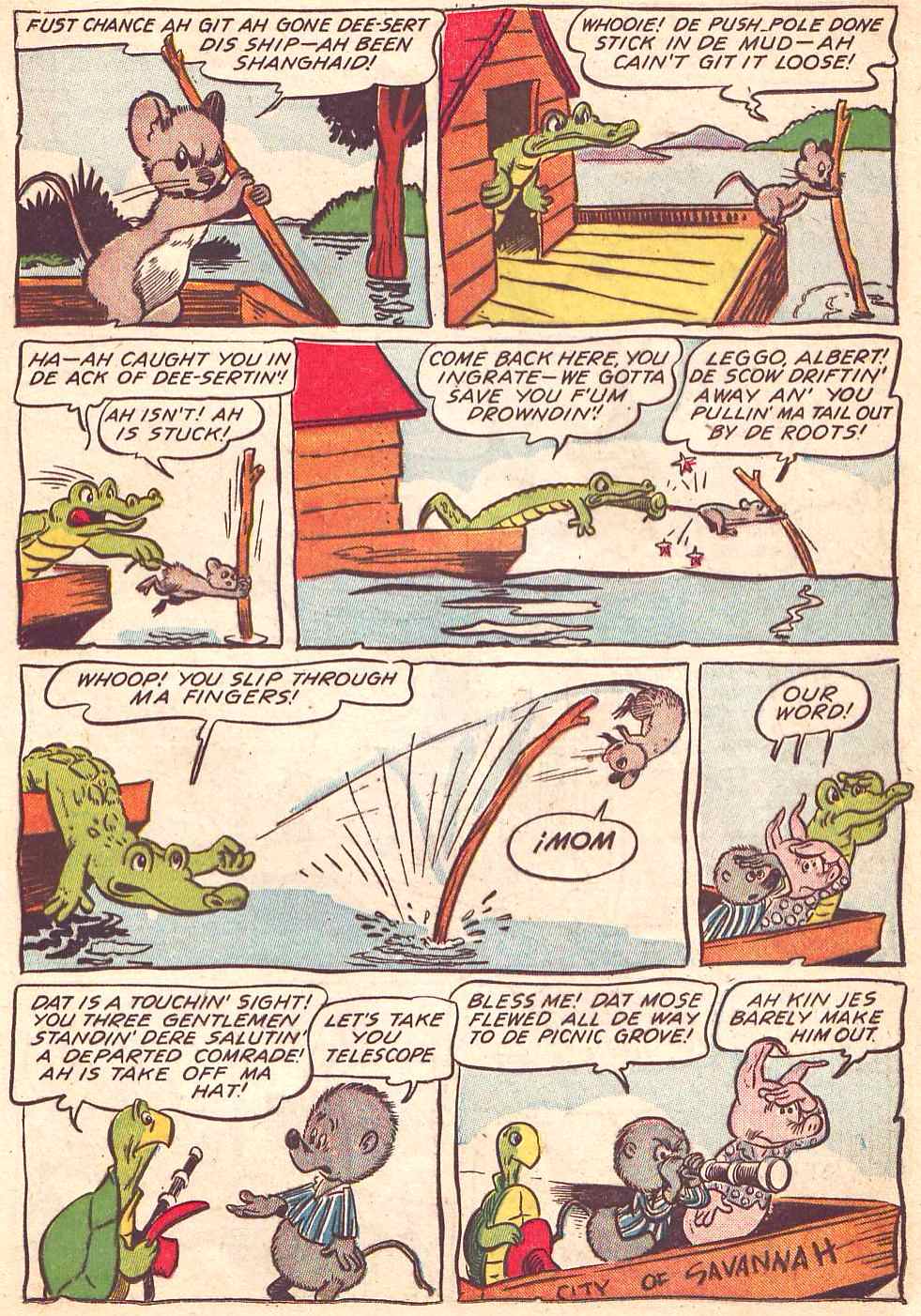
Raymond Albert “Ray” Burley was born on February 23, 1890, in Ainsworth, Nebraska, according to this World War I and II draft cards. His parents were Albert William Burley of Canada, and Mary Cornish of Indiana. They married in Midvaile, Nebraska on December 12, 1897.
In the 1900 United States Census, Burley (line 54) was the oldest of three brothers. The family included their maternal grandmother. They resided in Blaine, Washington on B Street. Burley’s father was a day laborer.
The 1910 census counted the Burleys in Everett, Washington at 3425 Rucker Avenue. Burley was a sign painter (line 86). The 1911 Everett city directory said Burley’s employer was the Westbrook Sign Company.
At some point, Burley moved to New York City.
On June 5, 1917, Burley signed his World War I draft card. His address was 60 West 66th Street in Manhattan, New York City. He was an unemployed artist. His description was five feet nine inches, medium build, with blue eyes and blonde hair.
Burley’s New York service card said he was inducted on May 27, 1918. He was in Company C of the 51st Pioneer Infantry and served overseas from July 26, 1918 to July 3, 1919. He was honorably discharged on July 10, 1919. A record of his service was in Snohomish County in the War: The Part Played in the Great War by the Soldiers, Sailors, Marines and Patriotic Civilians of Snohomish County, Washington, U.S.A.
At the Field Guide to Wild American Pulp Artists, David Saunders said Burley studied at the Art Students League from 1919 to 1923.
Burley contributed illustrations to several pulp magazines.
Burley has not yet been found in the 1920 census and 1925 New York state census.
According to the 1930 census, Burley (line 34) lived in Manhattan at 217 West 14th Street. He was a self-employed artist. His roommate worked in advertising.
The Springfield Republican (Massachusetts), January 18, 1934, said
New York, Jan. 17—The Phelps Publishing company of Springfield, with a claim of $4813, is one of three petitioning creditors who today filed an involuntary petition in bankruptcy in federal court here against the Criterion Magazine Publishing company, inc., publisher of magazines entitled Screen Humor, Radio Play and Twice-a-Month Love Book. The bankrupt has principal offices here at 51 East forty-second street. The other petitioning creditors and their claims are: Weiner Bindery, 207 West Twenty-fifth street, New York, $1500, and Raymond A. Burley, 217 West Fourteenth street, $500.
Aboard the steamship Pennsylvania, Burley departed New York on February 23, 1935. He arrived in San Diego, California (his future home) on March 8, 1935. The passenger list had his address as 3211 Rucker Avenue in Everett, Washington.
Who’s Who of American Comic Books 1928–1999 said Burley’s comic book career began in the late 1930s. The Grand Comics Database has many of Burley’s comics credits. Some of Burley’s early comic book works are at the Digital Comic Museum. He signed the following stories.
Keen Detective Funnies, #8, July 1938
War Comics #2, May 1940
Funny Pages #38, June 1940
War Comics #3, July 1940
Amazing Mystery Funnies #24, September 1940
In most of the previous pages, the dialogue was in italics and captions in roman. Burley would adopt this format on his lettering assignments for the Dell Publishing Company.
Burley’s address in the 1940 census was 200 West 16 Street. The artist had his own studio (line 20). His highest level of education was the eighth grade.
Burley’s World War II draft card, signed on April 27, 1942, had the same address. He was self-employed. His description was five feet nine inches, 152 pounds, with blue eyes, gray hair and mustache.
In the mid-1940s and early 1950s, Burley was lettering for Dell Publishing Company. He worked on many stories by Walt Kelly. In The Best of Pogo: Collected from The Okefenokee Star (1982), George Ward recalled Burley.
… All those beautiful comic pages were lettered by an old-timer named Ray Burley who lived in the West Village about six blocks from my apartment. Burley was an interesting character. He always had a pipe in his mouth. He did a beautiful lettering job and Walt was very pleased with his work. However, we did laugh that every time we got the lettered pages back from Burley, we had to clean the pipe ashes off. ...
Burley’s lettering appeared in the following Animal Comics from 1944 to 1948.
#8, April-May 1944: Albert the Alligator
#14, April–May 1945: Albert and the Noah Count Ark, see third tier for upside-down word
#24, December 1946–January 1947: Albert and Pogo
#25, February–March 1947: Albert and Pogo
#27, June–July 1947: Albert and Pogo
#29, October–November 1947: Albert and Pogo
… The lettering of Kelly’s Pogo Possum stories was farmed out, as so often had been the case with his earlier stories. Anne DeStefano wrote to Kelly in 1952 to tell him that Raymond Burley, a veteran illustrator for pulp magazines and early comic books, had lettered forty-six pages for no. 11, January-March 1953.[25] As before, the results, compared with lettering done by Kelly himself or under his direct supervision, were limp (the lettering is mostly italic) and all too uniform. George Ward said that Kelly was “very pleased” with Burley’s work, even though it seems clear that the expressive possibilities had been suppressed. …